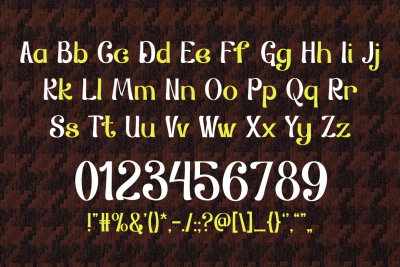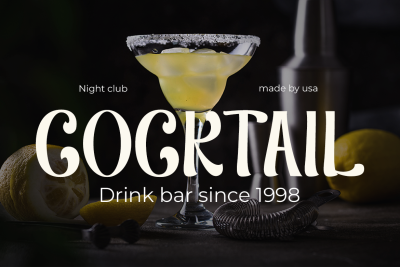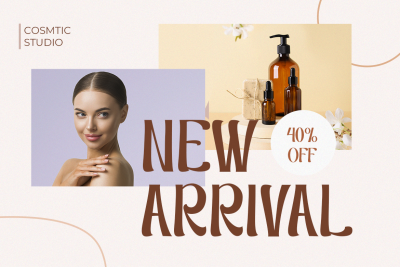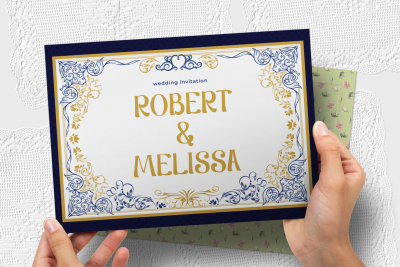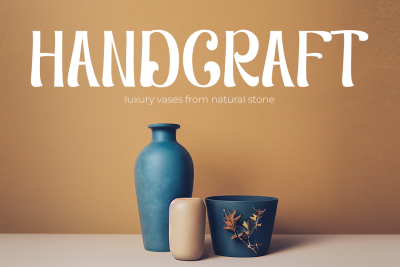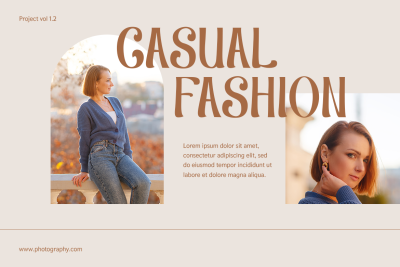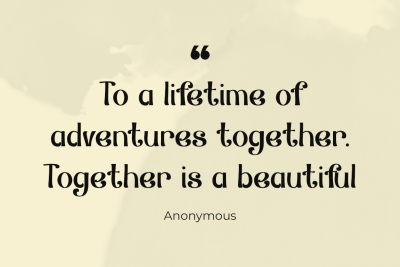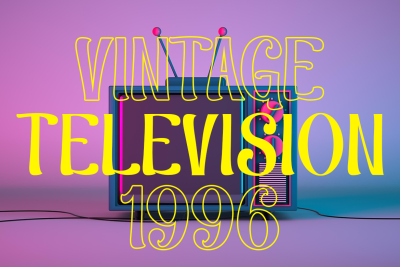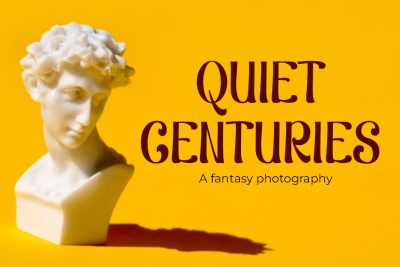
Retro Font Kelvin is a stylish typeface that exudes elegance and charm, inspired by vintage aesthetics. This font blends classic serif traits with a modern twist. It is perfect for projects aiming to combine timeless sophistication with contemporary appeal. Moreover, the distinct curves and bold letterforms make it ideal for eye-catching headlines, logos, or branding. Its character strikes a balance between decorative and readable, ensuring versatility in many design applications.
This fontโs letterforms carry an air of refinement. It evokes nostalgia while staying relevant in modern designs. Additionally, the subtle details in the letter shapes showcase the designerโs dedication to creating a premium yet approachable typeface. Furthermore, Retro Font Kelvin pairs beautifully with muted or earthy color palettes. It is perfect for designs looking to create warmth, authenticity, and character. Beyond its visual appeal, this fontโs adaptability ensures it can be paired with other typefaces to create dynamic, layered compositions.
Retro Font Kelvin Perfect For
Retro Font Kelvin is tailored for designers, entrepreneurs, and creatives wanting to make bold statements with typography. Whether youโre a branding specialist giving your clientโs identity a vintage flair or a small business owner elevating packaging, this font provides the tools to succeed. Specifically, itโs ideal for the following uses:
- Boutique Brands: Perfect for clothing lines, cafes, and lifestyle brands seeking a retro-modern aesthetic.
- Graphic Designers: A must-have for posters, invitations, and layouts requiring a nostalgic touch.
- Content Creators: Excellent for social media graphics, YouTube thumbnails, or blogs needing bold typography.
- Event Planners: Great for wedding invitations, event flyers, or menus needing vintage elegance.
With its versatile charm, Retro Font Kelvin helps creatives infuse their projects with a unique blend of the old and the new. Consequently, it creates designs that resonate emotionally while leaving a lasting impression. Additionally, its timeless appeal ensures that it remains relevant across different trends, making it a reliable choice for a wide range of creative projects.